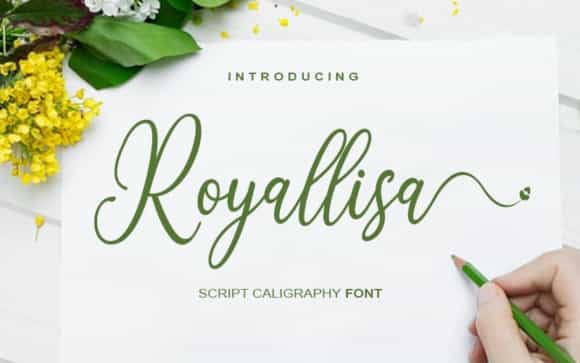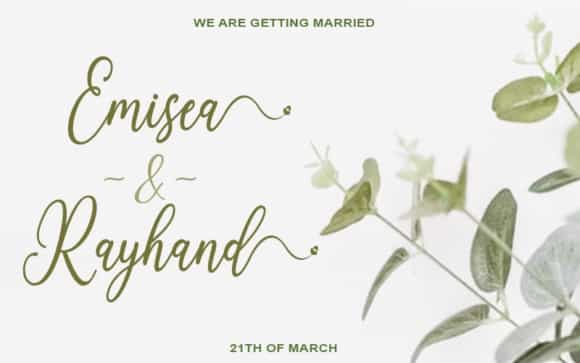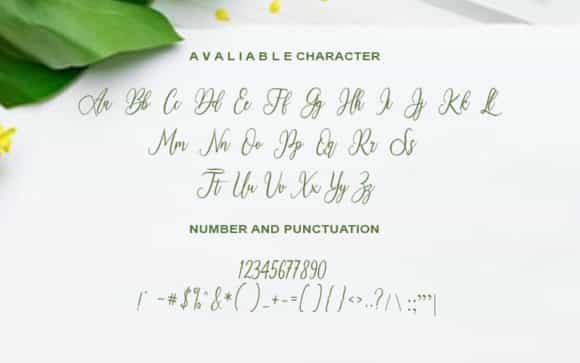
Royallisa is a lovely handwriting font. It is characterized by a very vintage look and at the same time, it still has that friendly touch. Royallisa is the best font for creating innovative and outstanding designs.